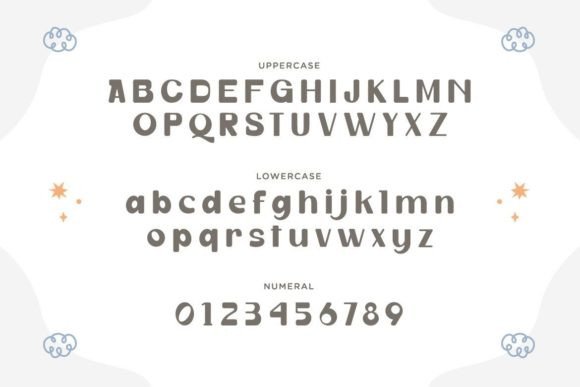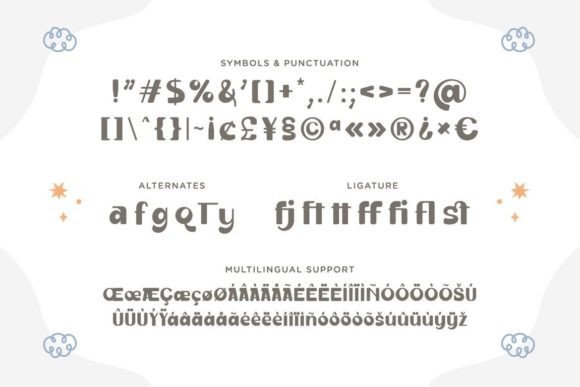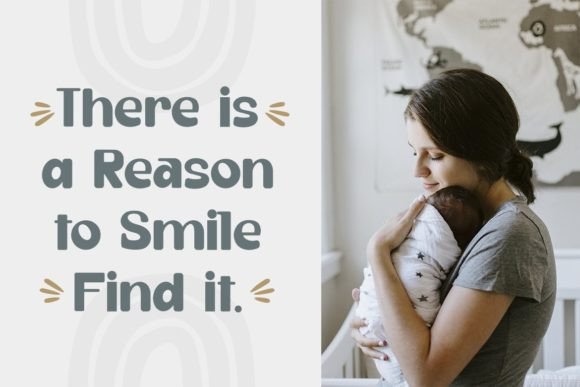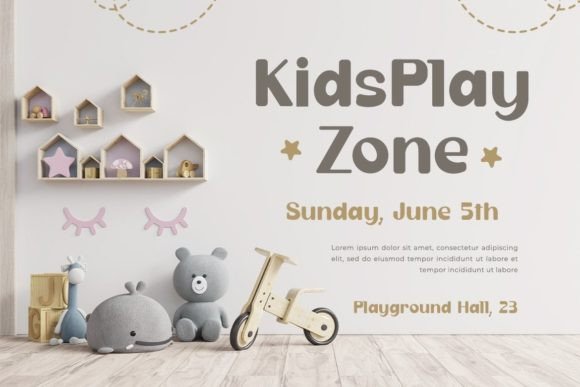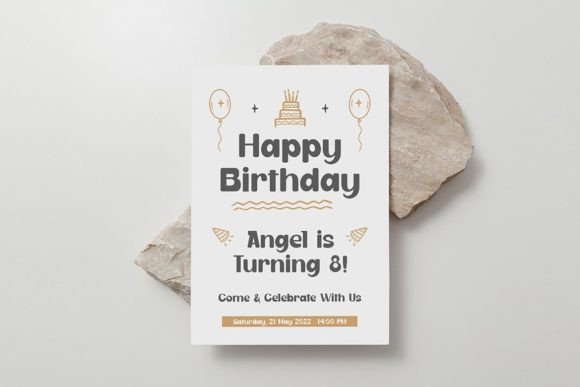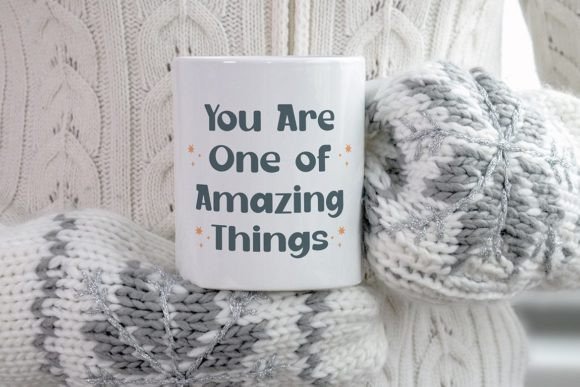
Bareuksa Font: The Playful Rounded Sans Font for Creative Projects
Are you tired of using the same old fonts for your creative projects? Look no further than the Bareuksa font, a playful rounded Sans font that can add a touch of whimsy and fun to any design. With its versatility and wide range of applications, Bareuksa is the perfect addition to your font collection.
What is Bareuksa Font?
Bareuksa is a modern, rounded Sans font that is designed to bring a playful and carefree vibe to your designs. Its smooth, rounded edges and clean lines make it perfect for a wide range of projects, from digital designs to print materials. Whether you’re working on a logo, brochure, or website, Bareuksa is sure to make your project stand out.
Key Features of Bareuksa Font
So, what makes Bareuksa font so special? Here are just a few of its key features:
- Playful and rounded design: Bareuksa’s rounded edges and clean lines give it a friendly and approachable feel that’s perfect for designs that need a touch of whimsy.
- Highly versatile: Bareuksa can be used for a wide range of projects, from digital designs to print materials, and can easily be matched to an incredibly large set of projects.
- PUA encoded: Bareuksa is PUA (Private Use Area) encoded, which means you can access all of the amazing glyphs and ligatures with ease.
Benefits of Using Bareuksa Font
So, why should you choose Bareuksa font for your next project? Here are just a few benefits of using this amazing font:
- Adds a touch of whimsy to your designs: Bareuksa’s playful design is sure to add a touch of fun and personality to your designs.
- Easy to use: With its PUA encoding, Bareuksa is easy to use and allows you to access all of its amazing glyphs and ligatures with ease.
- Highly versatile: Bareuksa can be used for a wide range of projects, making it a great addition to your font collection.
Creative Ideas for Using Bareuksa Font
So, how can you use Bareuksa font in your creative projects? Here are a few ideas to get you started:
- Logos and branding: Use Bareuksa to create a playful and memorable logo for your brand.
- Digital designs: Add Bareuksa to your digital designs, such as social media graphics, website headers, and more.
- Print materials: Use Bareuksa for print materials, such as brochures, flyers, and business cards.
- Crafting and DIY projects: Add Bareuksa to your crafting and DIY projects, such as handmade cards, scrapbooking, and more.
In conclusion, Bareuksa font is a playful rounded Sans font that is perfect for adding a touch of whimsy and fun to your creative projects. With its highly versatile design, PUA encoding, and wide range of applications, Bareuksa is a great addition to any font collection. So why not give Bareuksa a try and see how it can make your projects stand out?
- What is PUA encoding?: PUA (Private Use Area) encoding is a way of encoding fonts that allows for the use of special glyphs and ligatures.